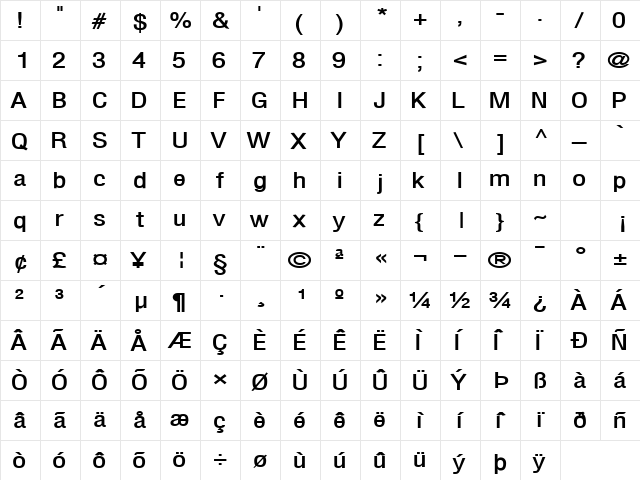
FirstHome34 Bold
Design Context for FirstHome34 Typeface
FirstHome34 offers clean, dependable letterforms without strong stylistic allegiance, making it a practical choice for designers who need flexibility. The heavy weight commands attention and anchors typographic hierarchies.